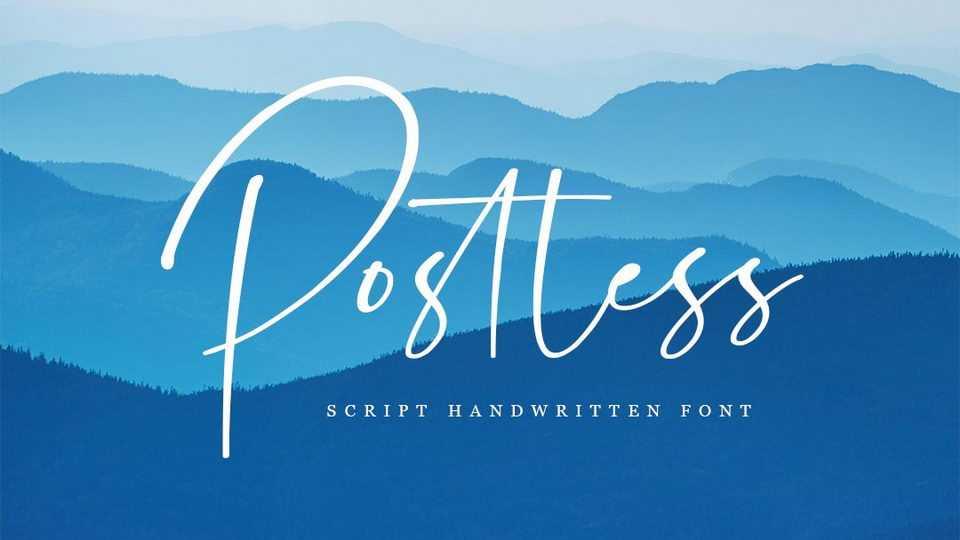
Download Postless font, a natural handwritten typeface with a light and smooth flow. Postless is suitable for branding, signature, wedding invitation, business card, and other your DIY projects.
Designer: Dav Studio